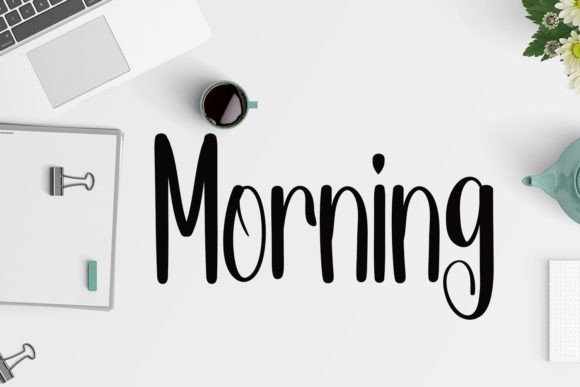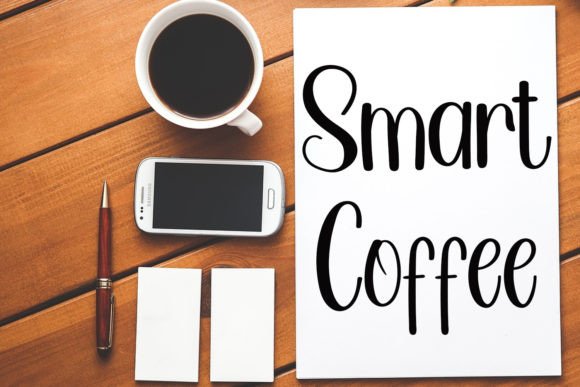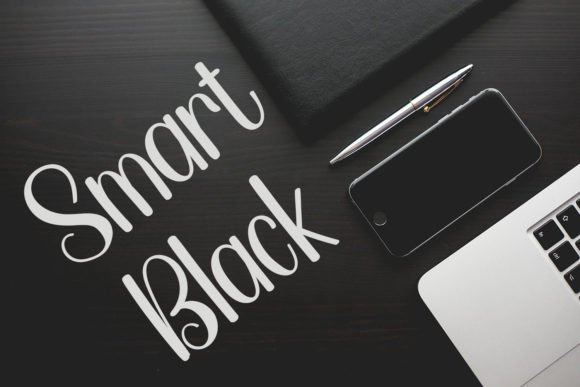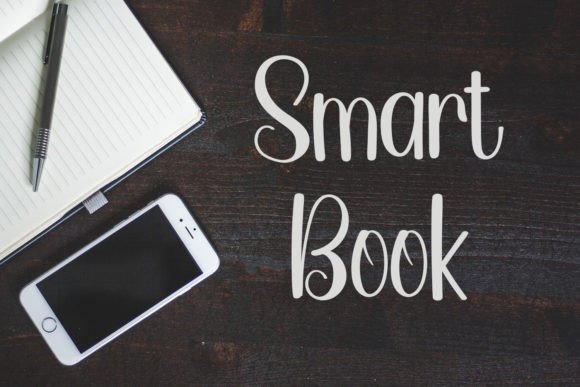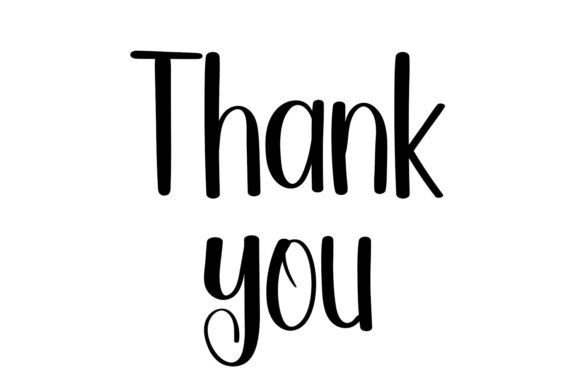
The Boomerang Font: A Fresh and Beautiful Addition to Your Design Toolbox
I’ll never forget the time I was working on a wedding invitation project, and my client asked me to create a custom design that reflected their playful and adventurous personalities. As I scrolled through my font library, I realized I needed something fresh and unique. That’s when I stumbled upon the Boomerang font, and it instantly became the perfect fit. In this article, I’ll share my experience with this beautiful modern handwritten typeface and provide a comprehensive guide on how to make the most of its features.
An Honest Review of Boomerang Font
What I Love About Boomerang Font ✨
- Its fresh and beautiful design, perfect for creating eye-catching visuals
- The modern handwritten style, which adds a touch of elegance and sophistication to any design
- Its versatility, making it suitable for a wide range of design purposes, from banners and cover logo mockups to wedding invitations and crafts
- The font’s excellent readability, even at smaller sizes
- The unique character set, which includes OpenType features, glyphs, and stylistic alternates
- Some users might find the font a bit too script-like for certain design projects ⚠️
- It may not be the best choice for body text, as it’s more suited for headlines and titles
The Backstory of Boomerang Font
Boomerang font was designed by a team of creatives who wanted to create a modern and elegant handwritten typeface. Inspired by the curves and lines of boomerangs, they crafted a font that’s both fresh and beautiful. The design process involved experimenting with different letterforms and shapes to create a unique character set that’s both stylish and readable.
A: Boomerang font is perfect for creating eye-catching visuals, such as banners, cover logo mockups, and wedding invitations. Experiment with its OpenType features and glyphs to add more personality to your designs.
A: While Boomerang font is excellent for headlines and titles, it may not be the best choice for body text. Its script-like style can be challenging to read in large blocks of text.